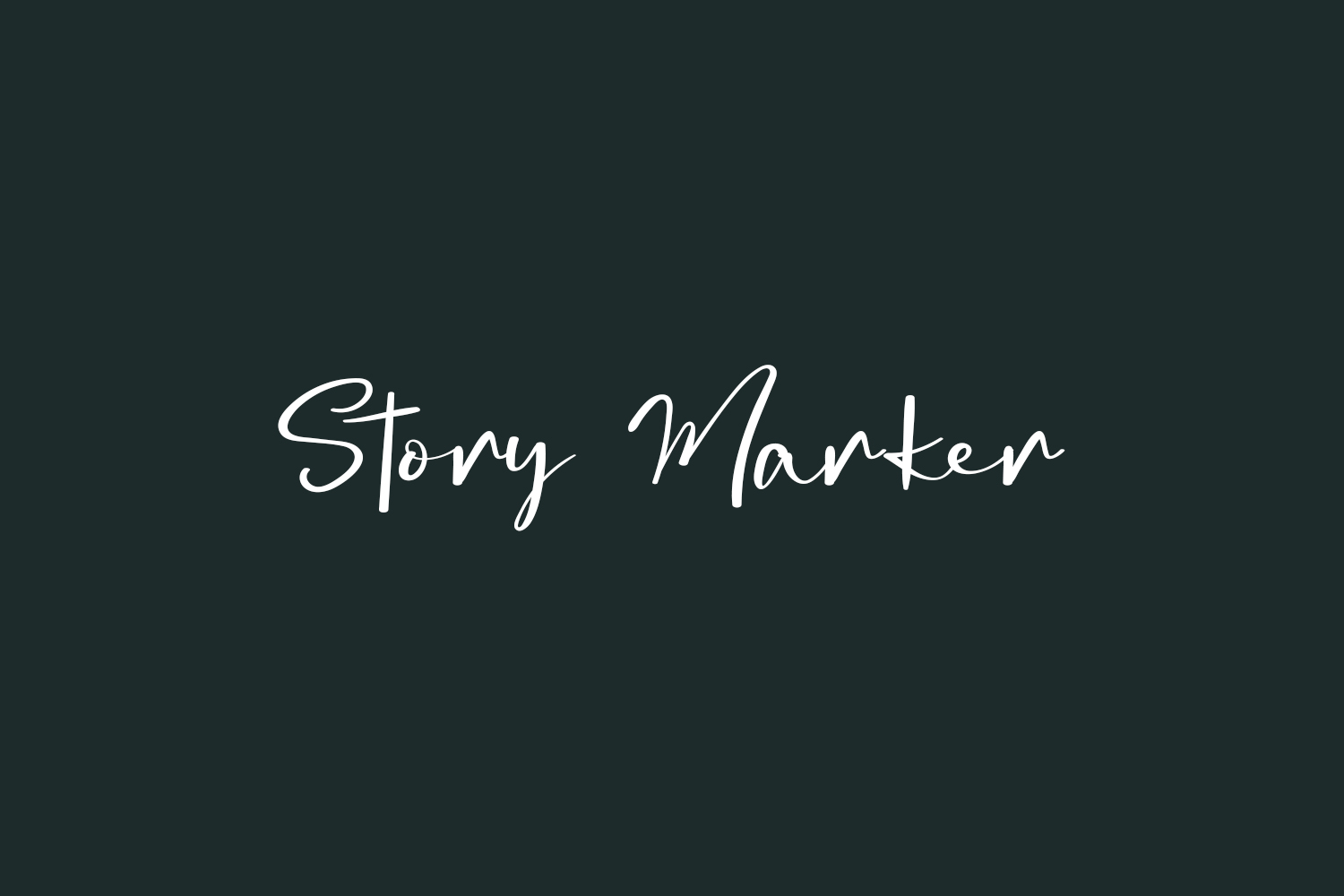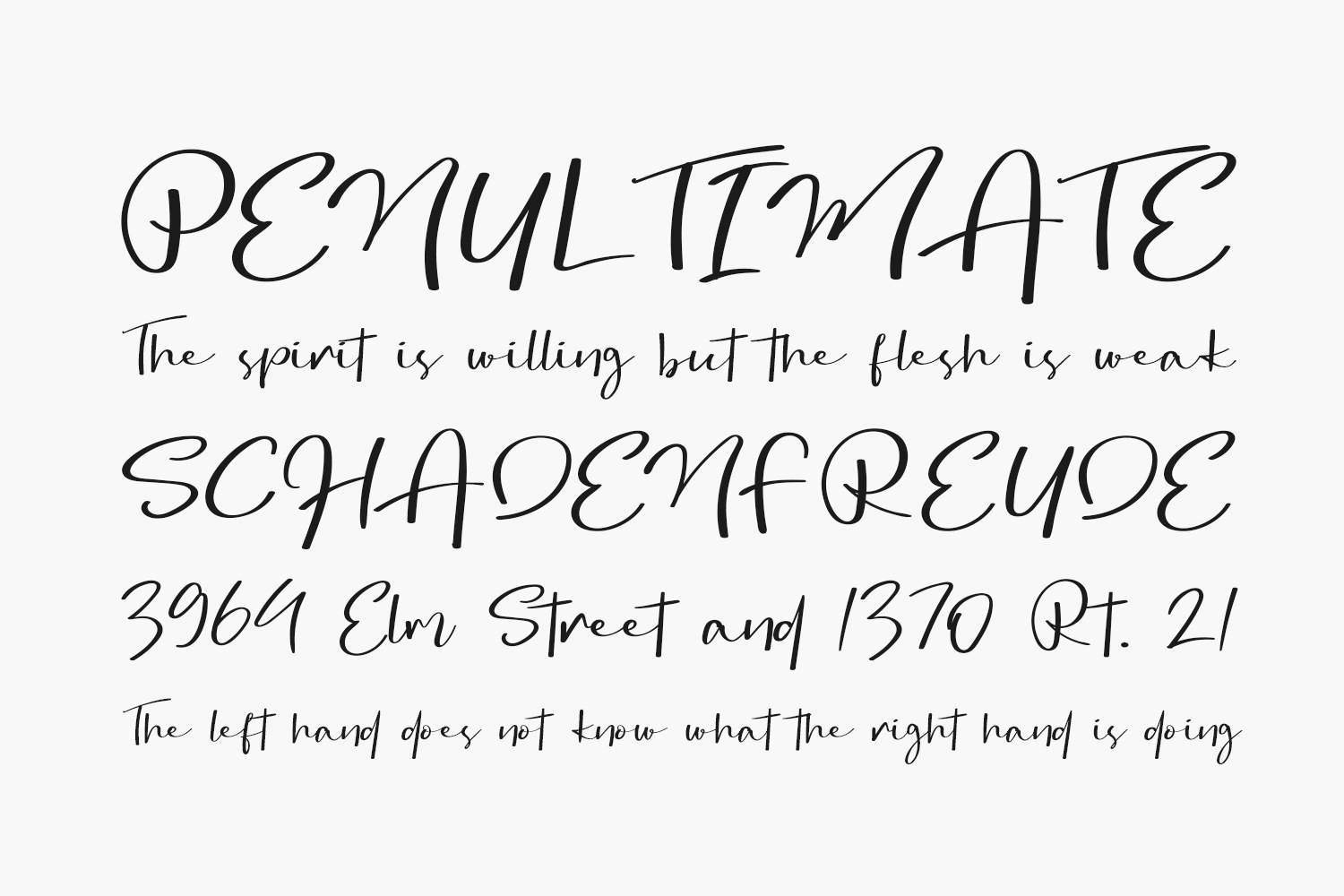
Introducing Story Marker Free Font, a captivating and enduring handwritten font that exudes charm and timelessness. With its exquisite appeal, this font is the ultimate choice for crafting eye-catching logos, branding elements, and memorable quotes. Each letter carries a distinctive and enchanting touch, infusing your designs with vibrancy and life. Story Marker Free Font is free for personal use only. Please purchase the full version for commercial use.